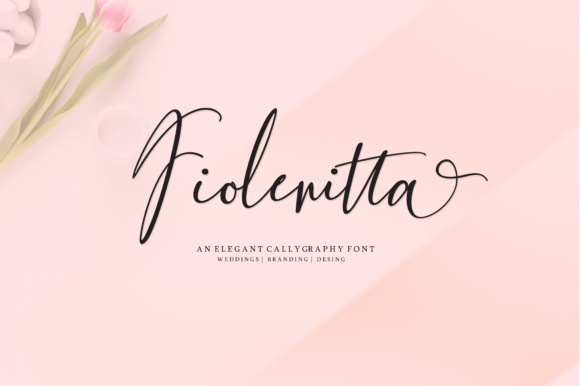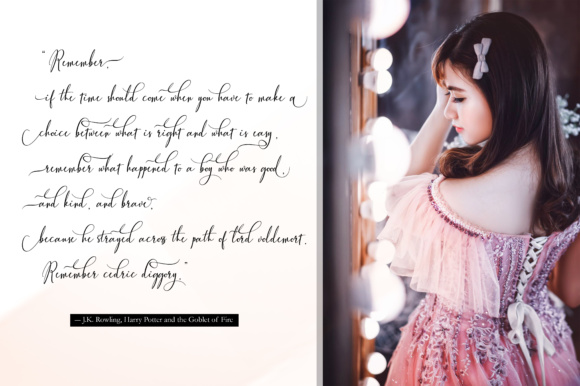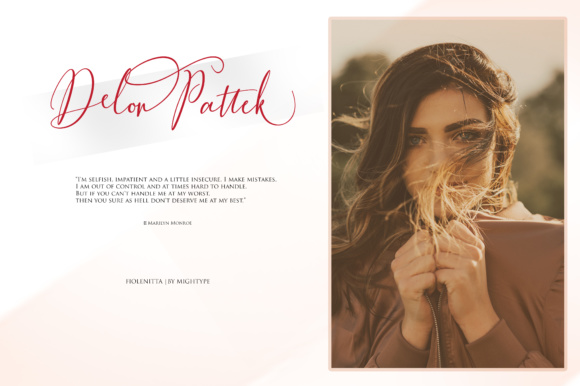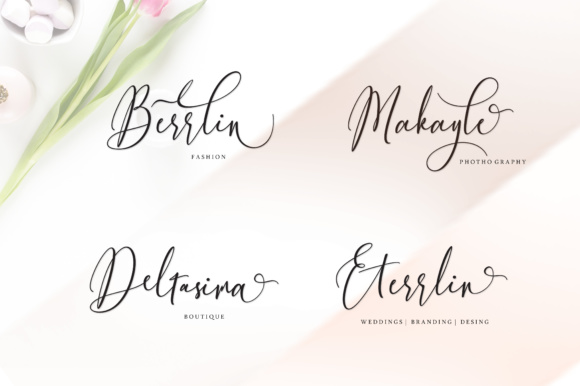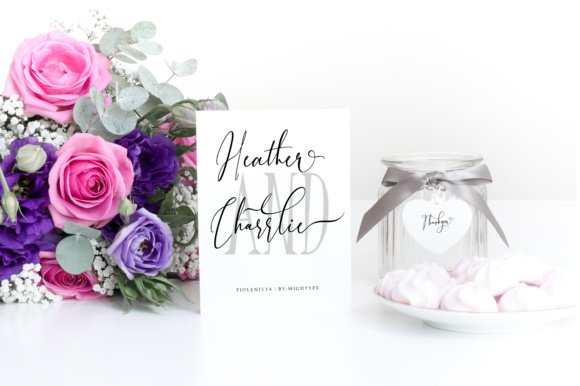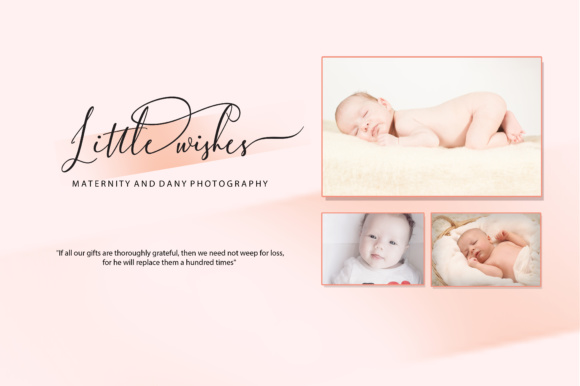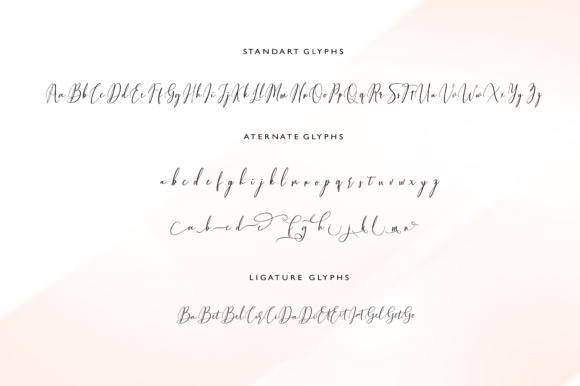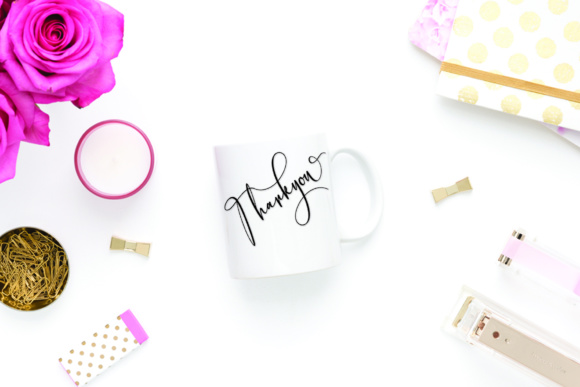
Fiolenitta Font
About Fiolenitta Font
Fiolenitta is a gorgeous and contemporary calligraphy font, ideal for use in projects that need a feminine and graceful appeal. This font comes with 444 glyphs, making it fully comprehensive enough to take on any task.